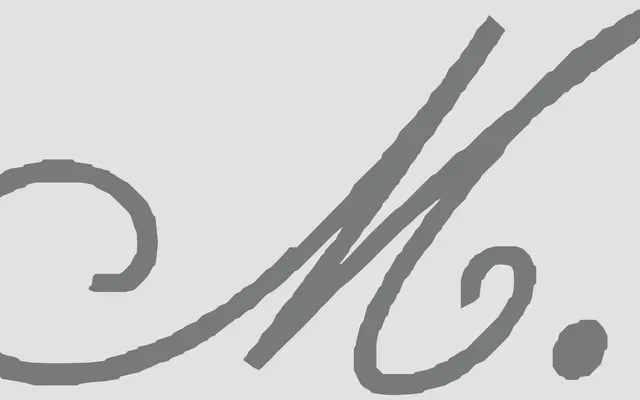
Melissa Script
A single-weight old-style handwriting script suited to notes, messages and personal correspondence.
With one weight and a straightforward character set covering upper and lowercase Latin alongside figures and basic punctuation, Melissa Script keeps things deliberately simple. Its old-style handwriting character makes it a natural fit for greeting cards, personal notes and any context where warmth and informality are wanted. The narrow licensing scope of the page suggests it is positioned as a boutique retail offering rather than a workhorse text family.
Described explicitly as an old-style handwriting typeface, placing it firmly in the script category as a casual or informal handwriting style rather than a formal calligraphic script.